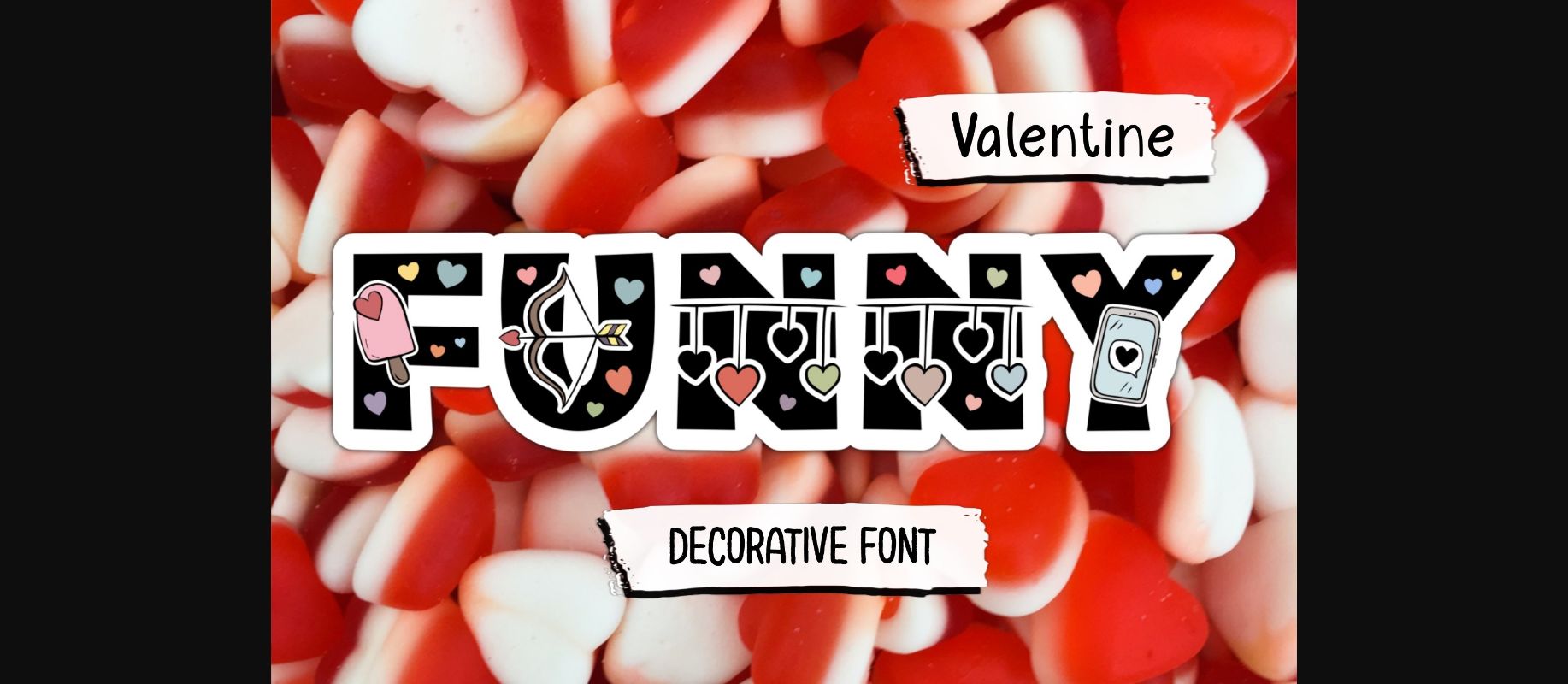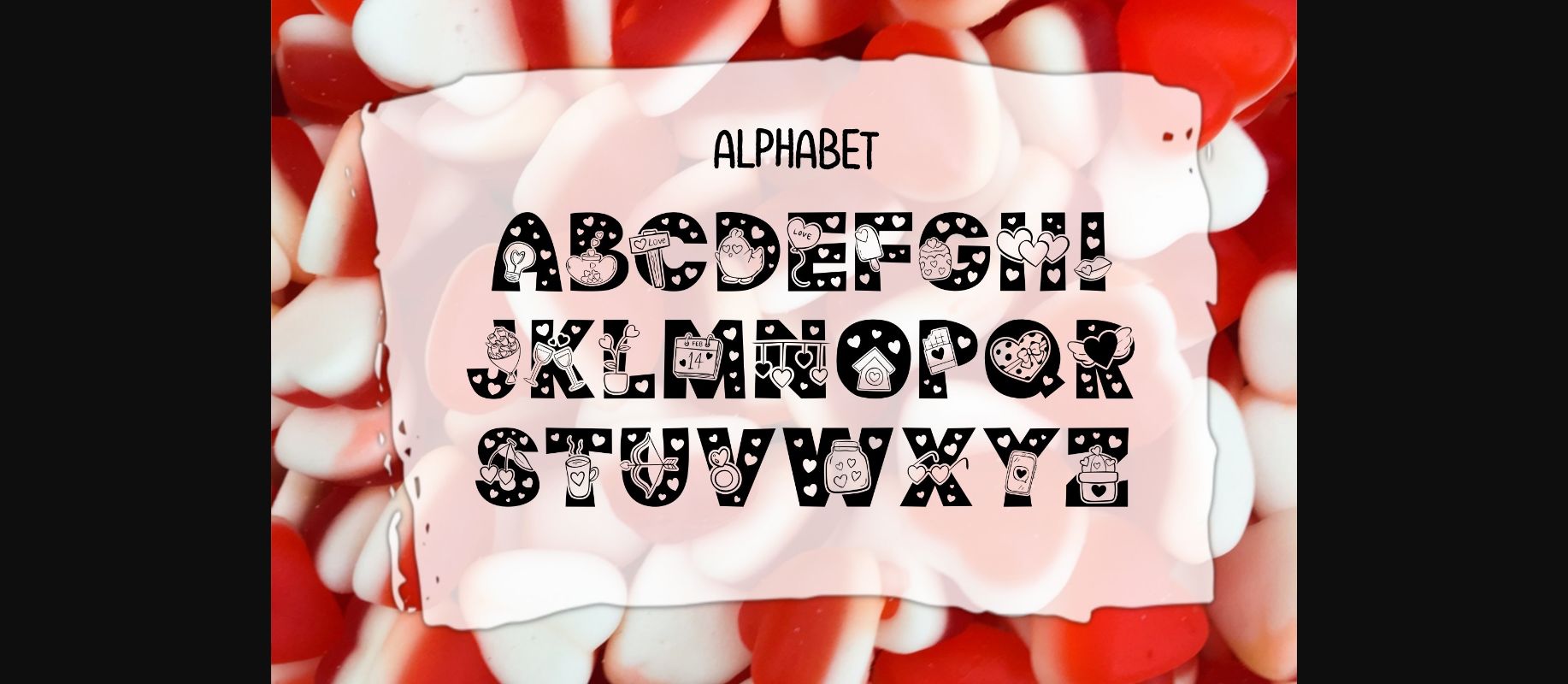
About Funny Valentine Font
Funny Valentine is a decorative font. This font is perfect for a design that makes it more attractive and playful. Great for Valentine-themed projects, book covers, posters, packaging, merchandise, logotypes, and much more.